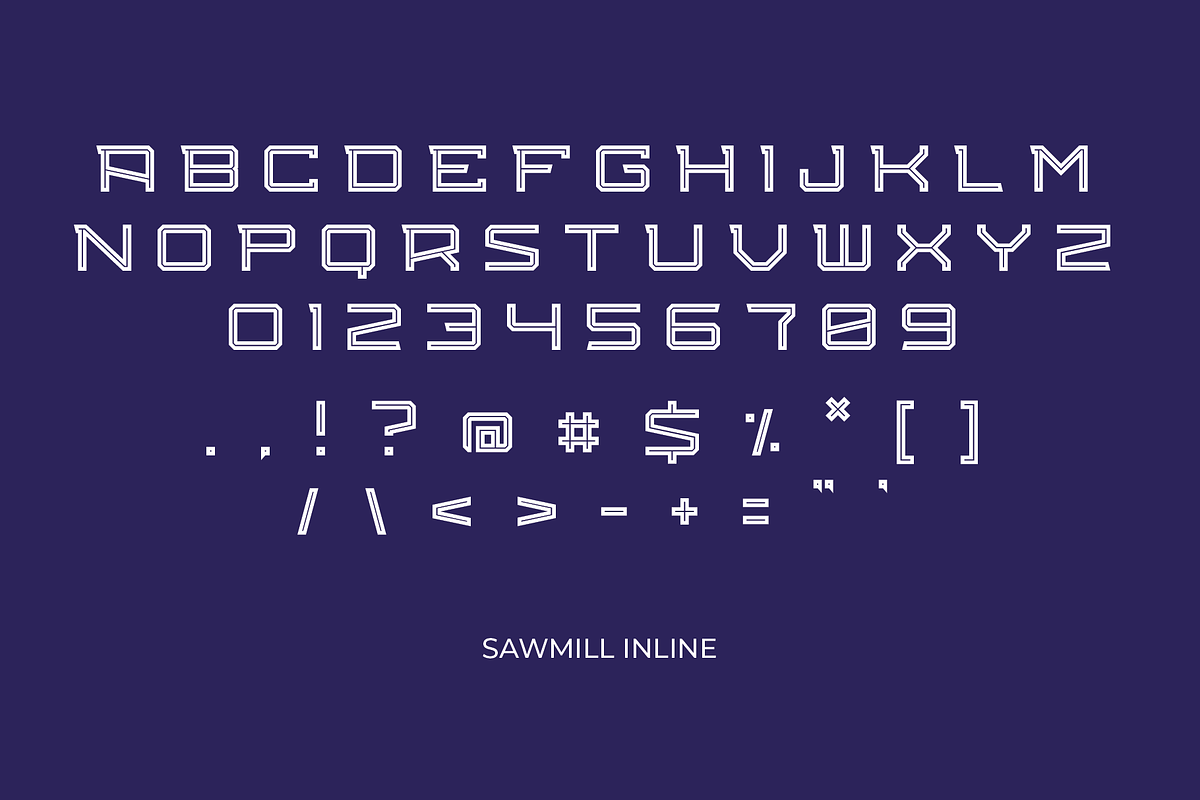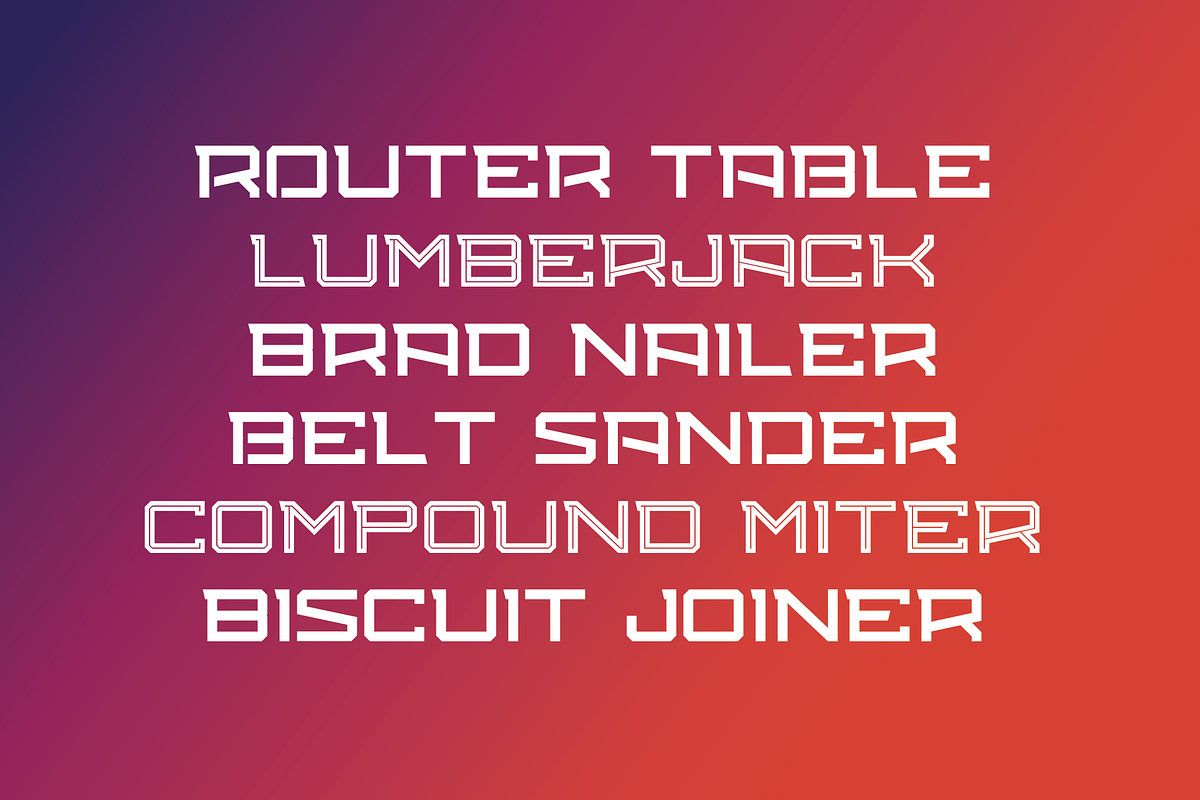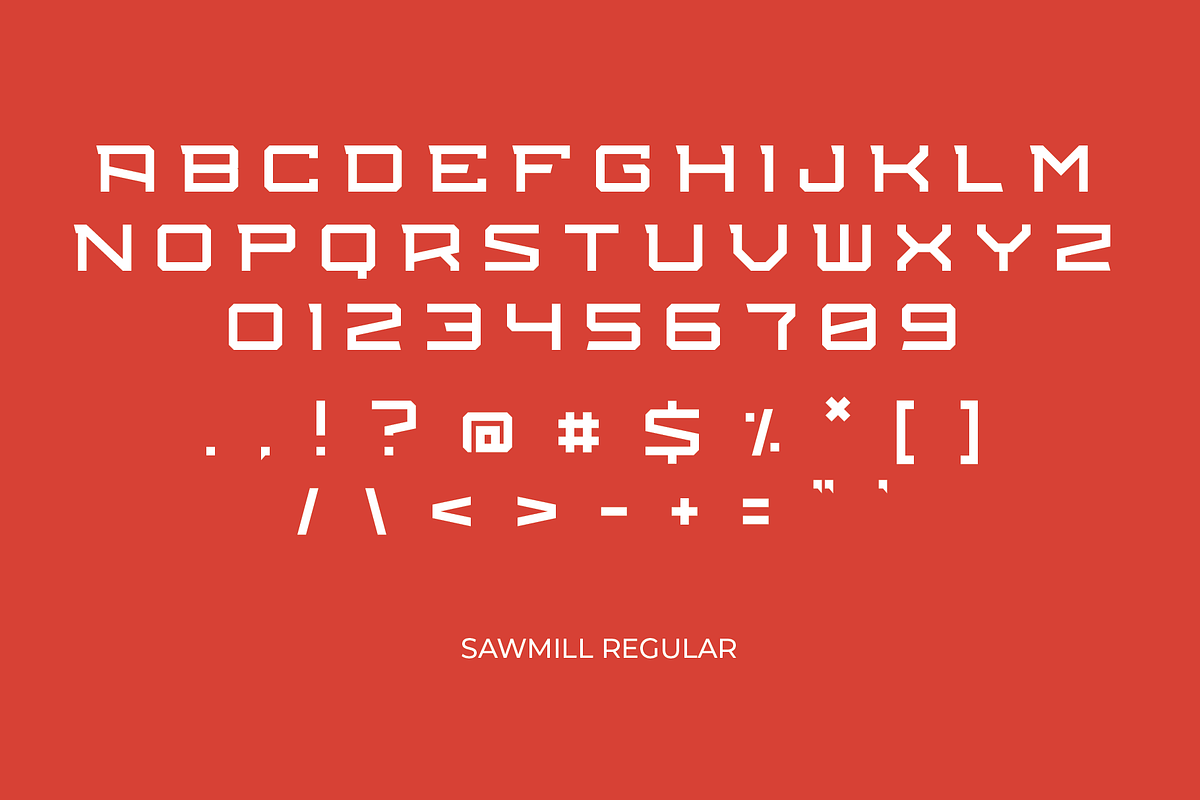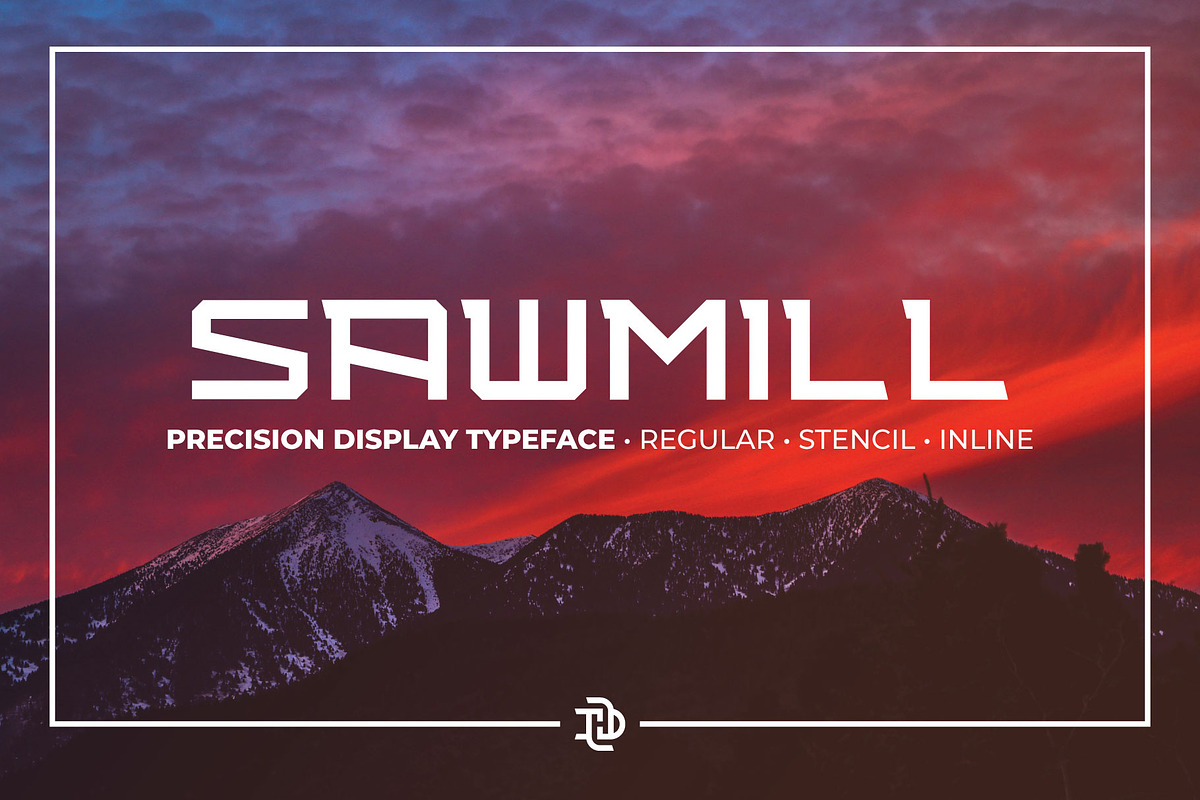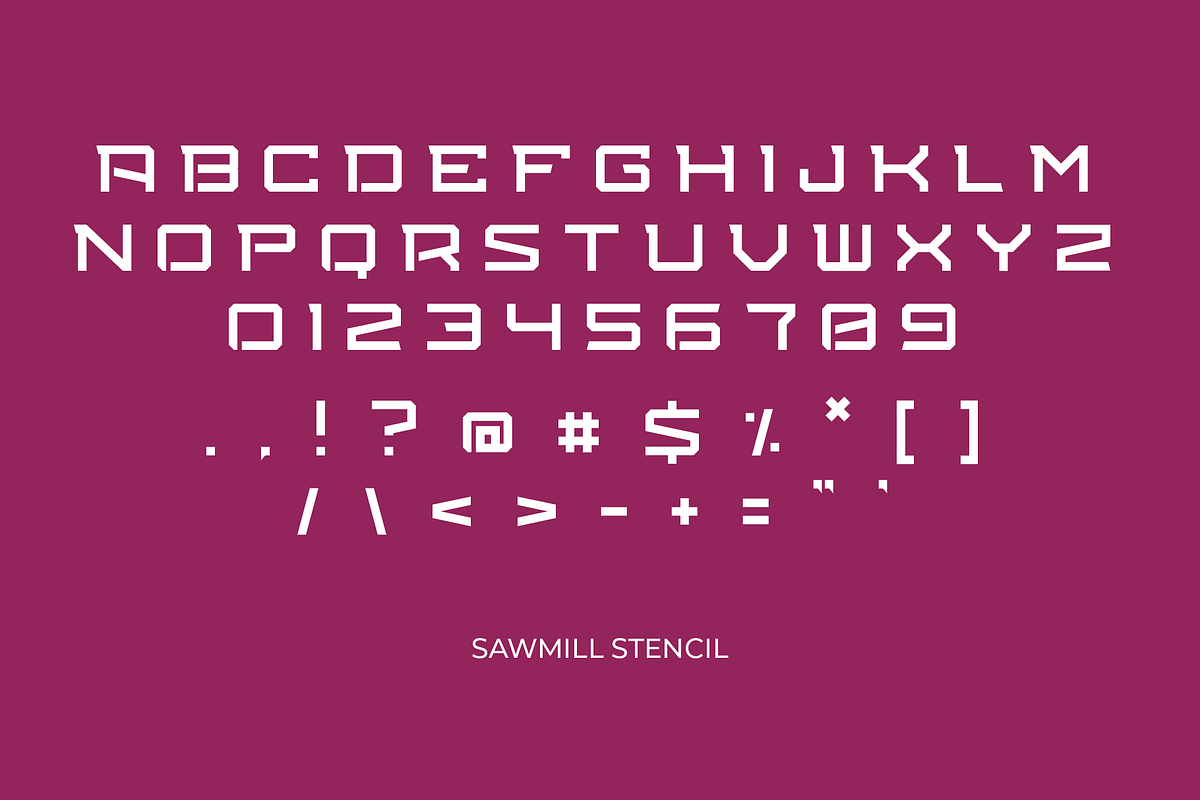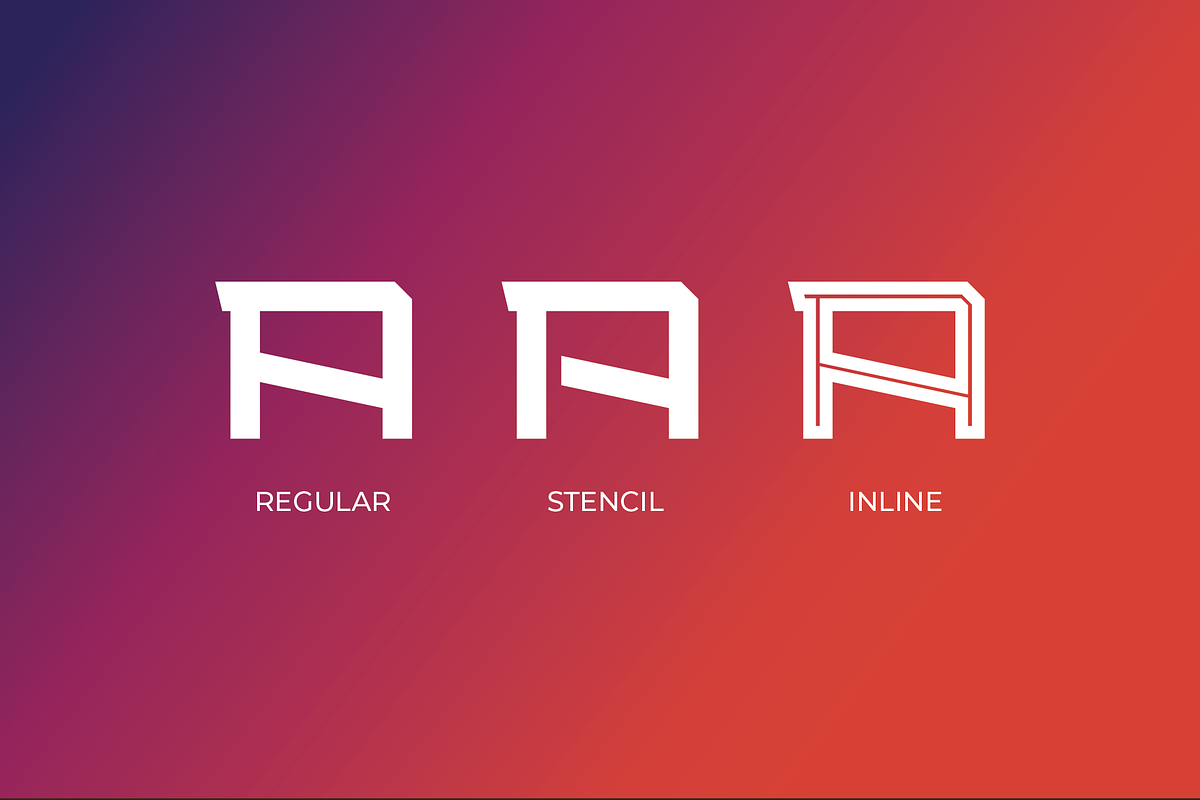
Sawmill | Athletic Display
Precision cuts and a no-nonsense block typeface come together for Sawmill, a precision athletic display typeface; the perfect font for someone who likes to measure twice and cut once.
Available in 3 varieties, Sawmill features regular, stencil, and inline options.
Sawmill fits a variety of uses where precision and impact are needed. From beer bottles to billboards, posters to packaging, Sawmill is a great choice when you need to add some sharpness and impact to your project.
Sawmill fits a variety of uses where you need to measure twice and cut once." From bus wraps to book covers, posters to packaging, Sea Dog is a great choice when you need to add some hard-working grit and a ‘roll up your sleeves’ attitude to your project.
Sawmill ain't just for lumberjacks – it’s comfortable in all kinds of scenarios: athletic branding and apparel, craft beer labels and packaging, restaurant menus and signage, retro badges and illustrations, even print and digital advertising.